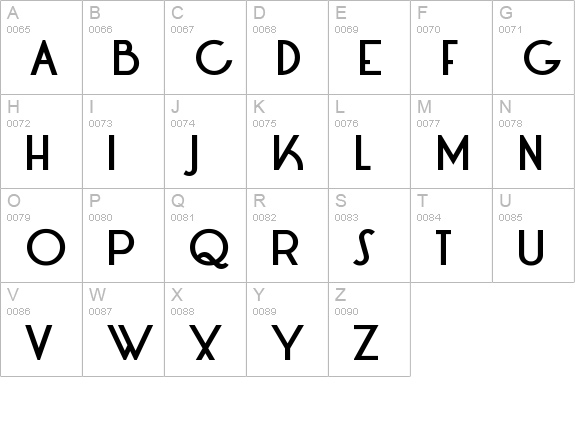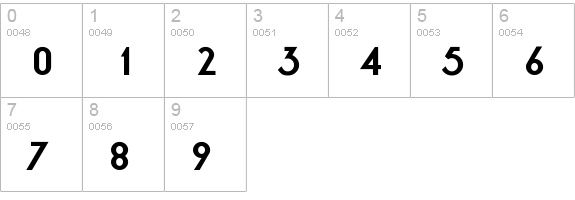
LT Oksana Bold Font Details
LT Oksana Bold is a strong, high-contrast variant in the LT typeface family \xE2\x80\x94 well suited to headlines, attention-grabbing titles, and strong calls-to-action.
Introducing LT Oksana Bold font, an exquisite typeface that effortlessly blends elegance and modernity. This captivating font is perfect for adding a touch of sophistication to any design project. With its bold and confident strokes, LT Oksana Bold commands attention and makes a powerful statement on any medium. Whether it's a headline, logo, or branding materials, this font will captivate your audience and leave a lasting impression. Designed with meticulous attention to detail, LT Oksana Bold offers a wide range of characters that are both visually appealing and highly legible. Its balanced proportions and well-defined letterforms make it a versatile choice for various applications, from print to digital. But what sets LT Oksana Bold apart is not just its exceptional design, but also its accessibility. This incredible font is freely available to download at FontsMarket.com, making it easily accessible to designers and creators worldwide. Take advantage of this opportunity to enhance your creative projects with the timeless beauty of LT Oksana Bold font. Whether you're designing a magazine layout, creating a website, or crafting advertising materials, this font will elevate your work to new heights of sophistication and professionalism. Download LT Oksana Bold today from FontsMarket.com and experience the freedom to create stunning designs that make a lasting impact.